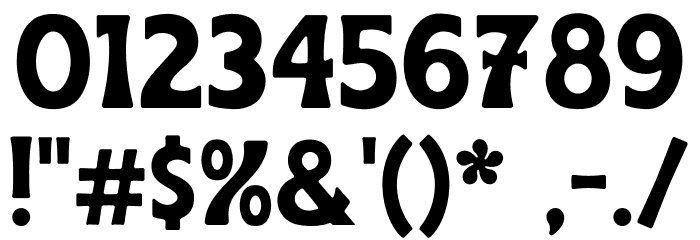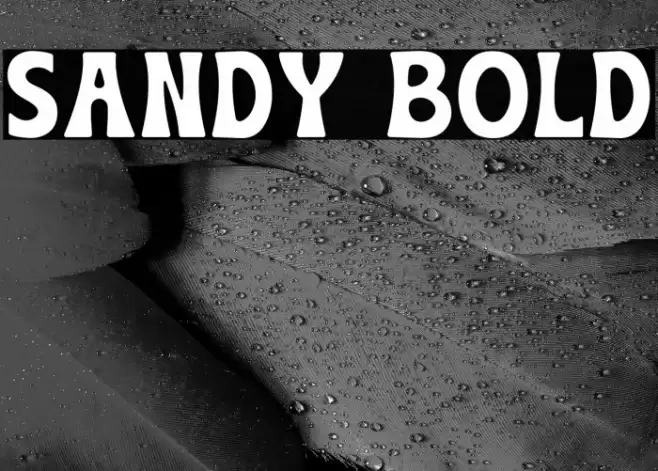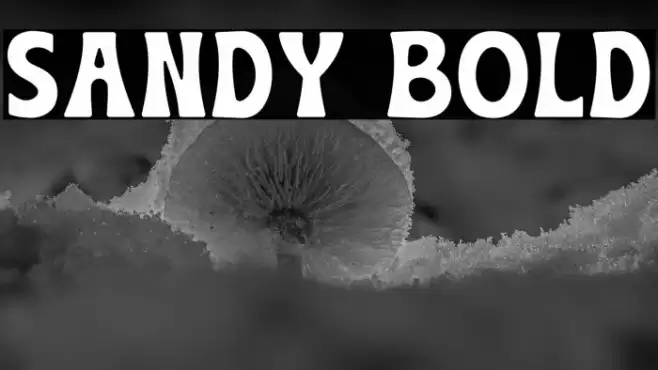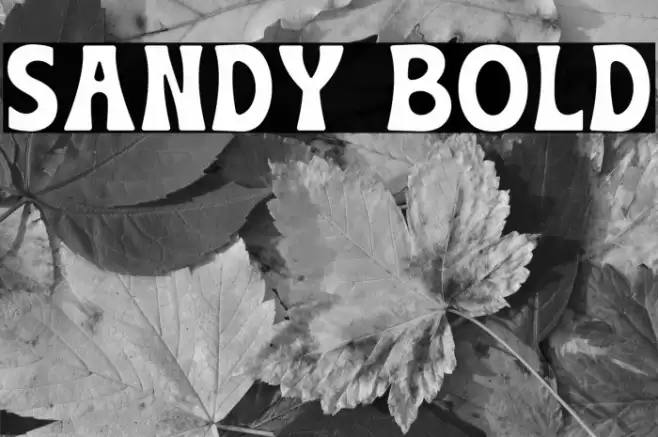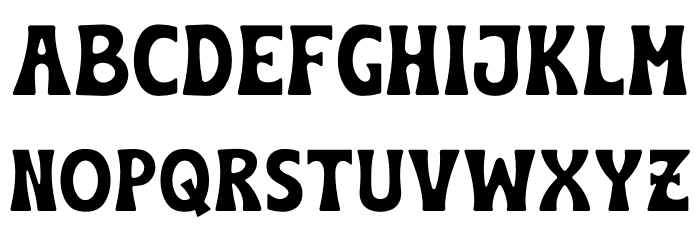
Sandy Bold Font
Sandy Bold Description
This font features a bold and playful design with a slightly whimsical touch. The characters are thick and rounded, giving a sense of friendliness and approachability. The uppercase and lowercase letters maintain a consistent style, with a slight slant that adds a dynamic feel. The numbers are equally bold, ensuring readability and uniformity across different uses. Special characters are creatively designed, maintaining the overall playful aesthetic. This font is perfect for projects that require a bold statement with a touch of fun.
| Overall Style | Playful, Whimsical |
| Proposed Projects | Ideal for children's books, playful branding, posters, and creative advertisements. |